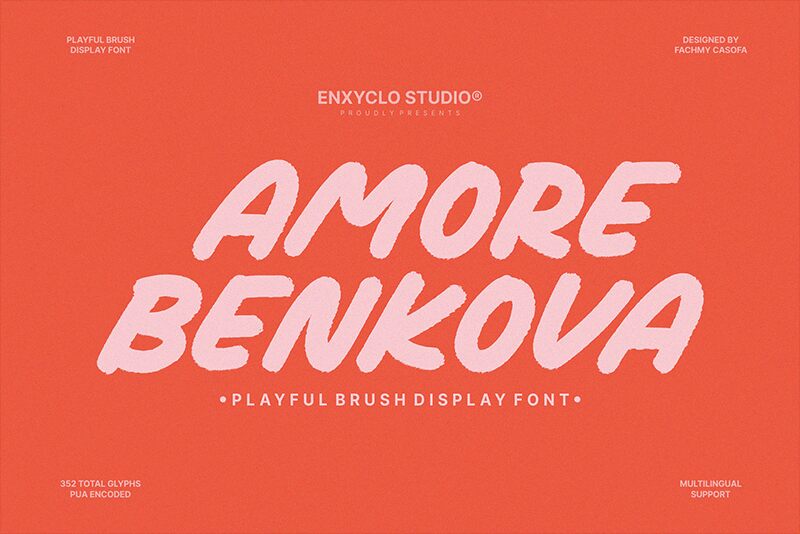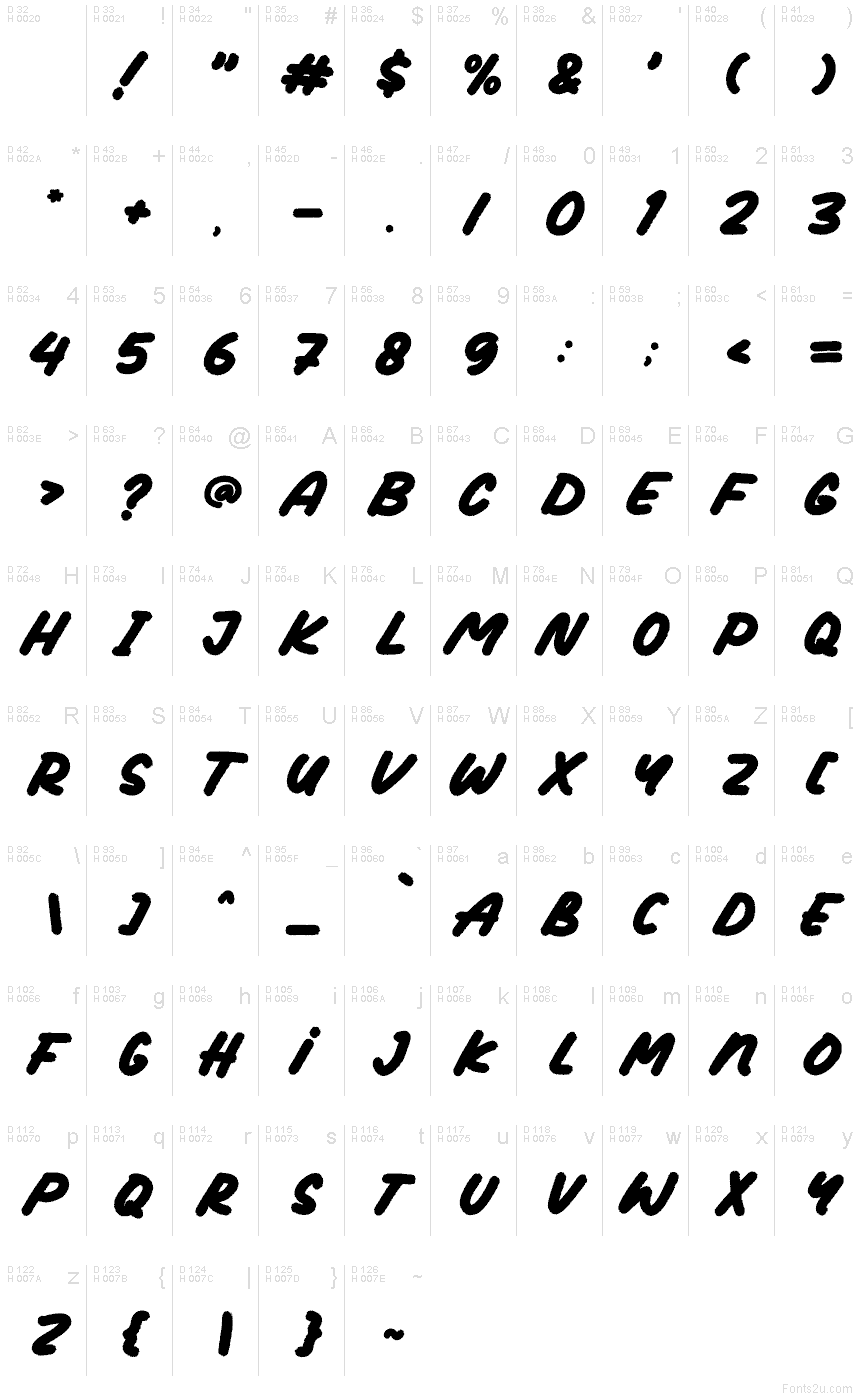
NCL Amore Benkova Demo
NCL Amore Benkova font by Enxyclo Studio is a free brush script typeface. Thick, slanted strokes carry a loaded-ink feel, with quick, confident motion and just enough ragged texture to feel hand‑painted without turning messy. The rhythm is steady and compact, so words lock up neatly and stay readable—exactly the hit of human energy you want when a clean sans won’t cut it.
Using NCL Amore Benkova, you can inject punch into streetwear logos, food truck branding, festival posters, sporty flyers, YouTube thumbnails, and bold packaging. This free font shines at headline sizes; keep tracking tight for impact. For supporting copy, pair it with a simple grotesk or geometric sans to let the brushwork lead.